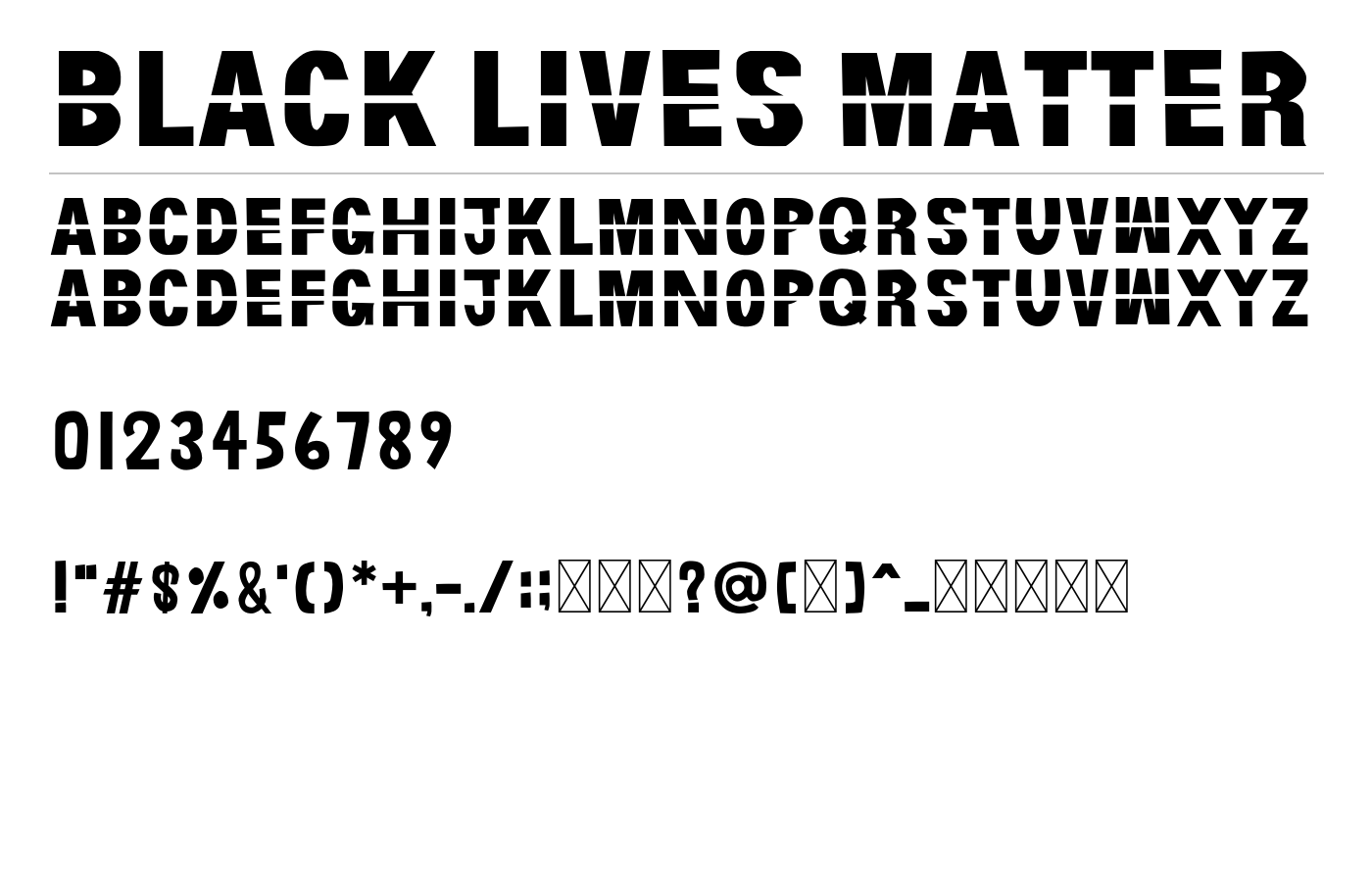
Black Lives Matter Font is a bold, condensed sans serif typeface with striking horizontal cuts across each letter, giving it a strong, impactful, and modern appearance. Its high weight and tight spacing make it perfect for powerful headlines and statements, conveying urgency and strength ideal for activism, branding, and eye-catching posters. This font’s unique sliced style adds a dynamic edge that commands attention while maintaining clear readability.
Black Lives Matter Font
About Black Lives Matter Font
| Font family | Black Lives Matter Font |
| Designer | Activists |